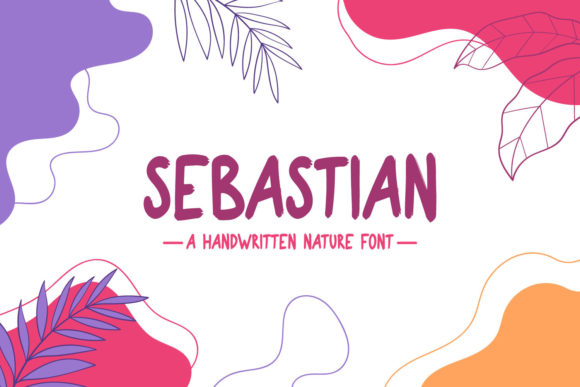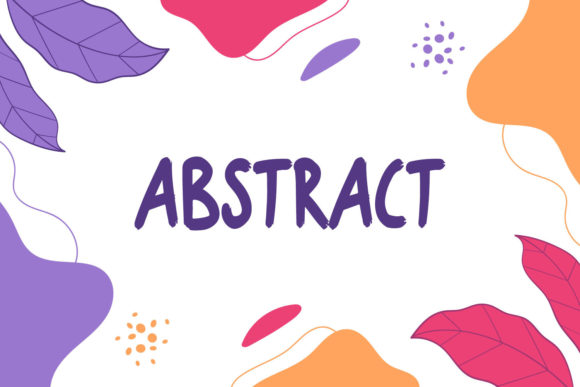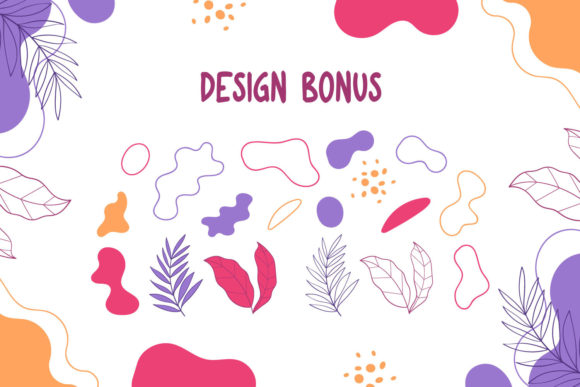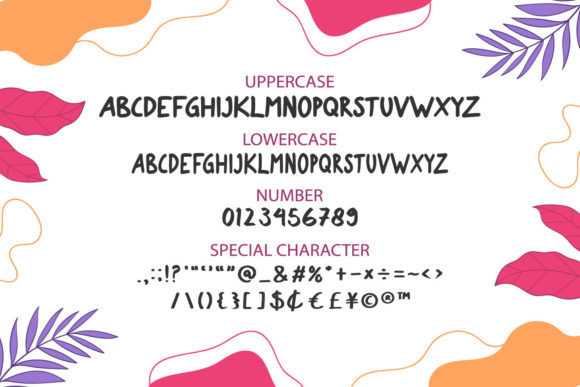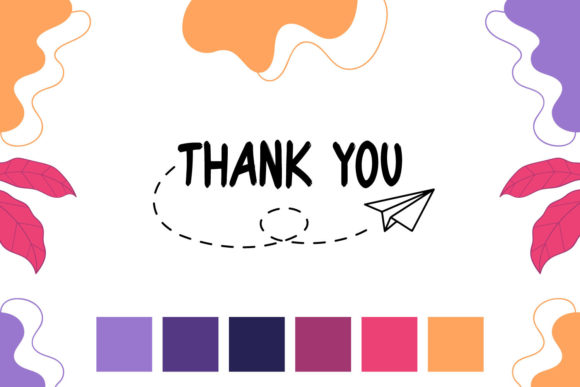
About Sebastian Font
Sebastian is a simple, beautiful and brushed handwritten font. It is defined by smooth curves and is perfect for fashion branding or editorial designs. Add it confidently to your projects, and you will love the results.